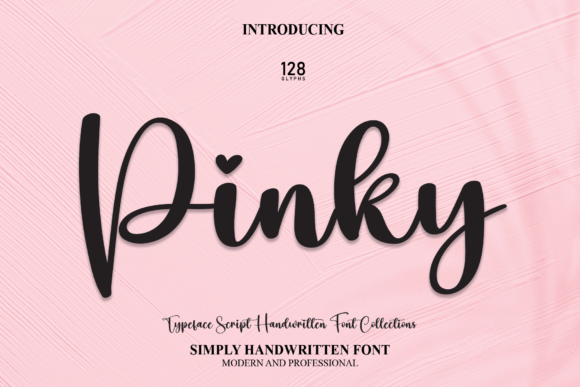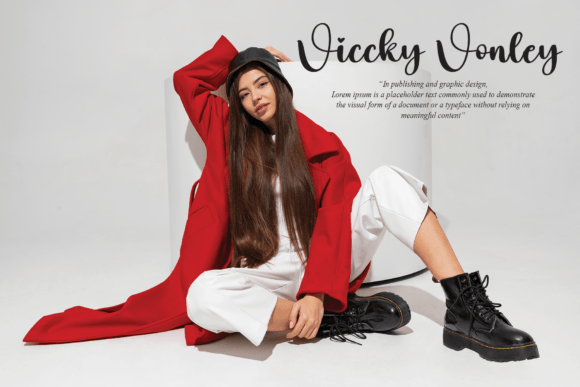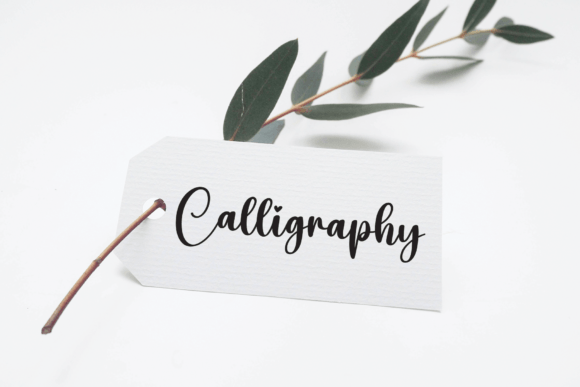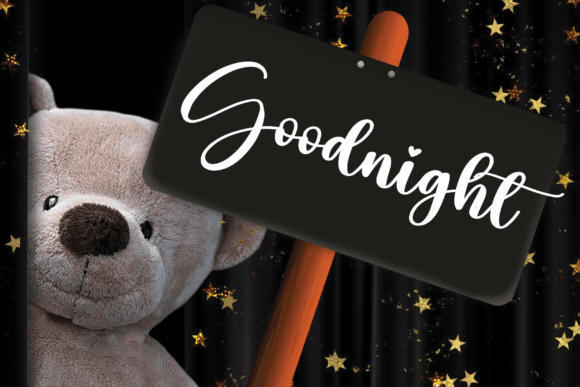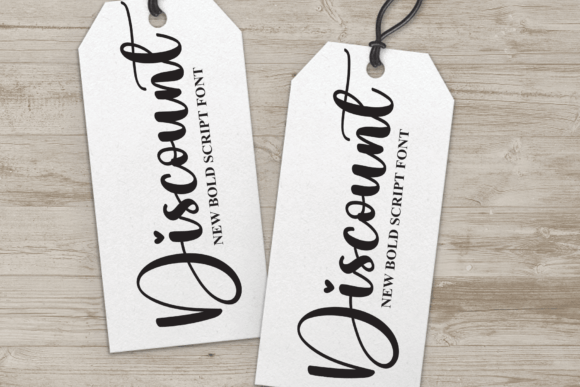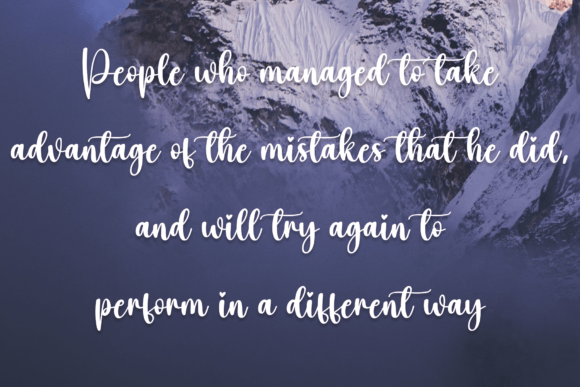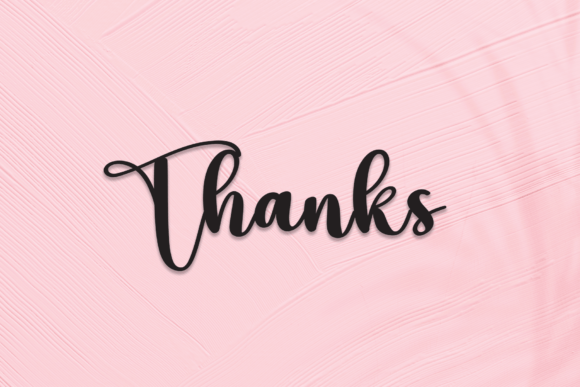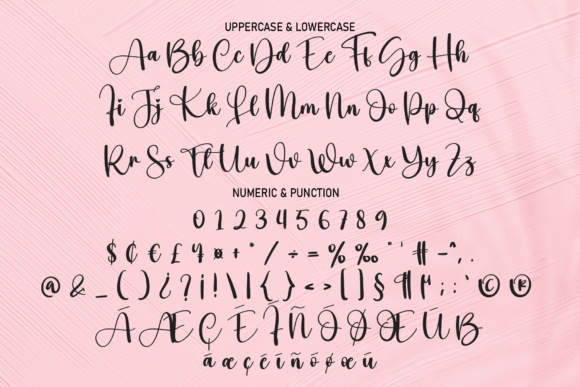
Pinky Font
About Pinky Font
“Pinky” is a beautiful script font that combines a modern and unique shape with a natural writing style. This font opens up a world of creative possibilities, allowing you to effortlessly craft beautiful typographic designs for various applications such as branding, web design, editorial work, prints, crafts, and quotes.
The modern and unique shape of “Pinky” sets it apart, making it a visually appealing choice for a wide range of design projects. Its versatility allows you to create stunning and contemporary typographic compositions that catch the eye and communicate a sense of style.
The natural writing style of “Pinky” adds authenticity to your designs. The flowing and organic nature of the script gives the text a warm and inviting feel, making it suitable for a variety of contexts. Whether you’re working on branding materials, wedding invitations, romantic cards, labels, packaging, or quotes, this font adapts seamlessly to your creative vision.
In the realm of logotypes, “Pinky” brings a fresh and contemporary look. Its script design allows for dynamic and engaging logos that leave a lasting impression. The font’s ability to convey a sense of modernity makes it well-suited for businesses and projects that aim to communicate a forward-thinking and stylish identity.
For wedding invitations and romantic cards, “Pinky” adds a touch of elegance and charm. Its natural flow and unique shape enhance the romantic atmosphere, making it perfect for capturing the sentiment of special occasions.
In crafting and packaging, “Pinky” becomes a valuable asset. Its beautiful script can add a personalized and handcrafted touch to your creations, elevating the overall presentation and appeal of your products.
Overall, “Pinky” is more than just a font; it’s a creative tool that breathes life into your ideas. Its modern shape, natural writing style, and versatility make it a fantastic choice for designers looking to infuse their projects with a contemporary and authentic aesthetic. Whether you’re designing for print or digital media, “Pinky” stands out as a font that brings creativity and uniqueness to the forefront of your designs.